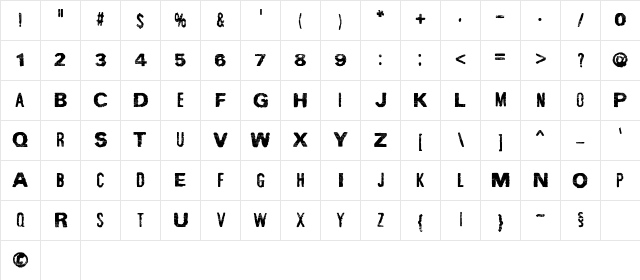
Spirit Ginger is a composed and adaptable typeface that performs quietly and consistently across a wide range of design contexts.
Pro Tip: Use Spirit Ginger in both headline and body roles to test its range before committing to a single application.